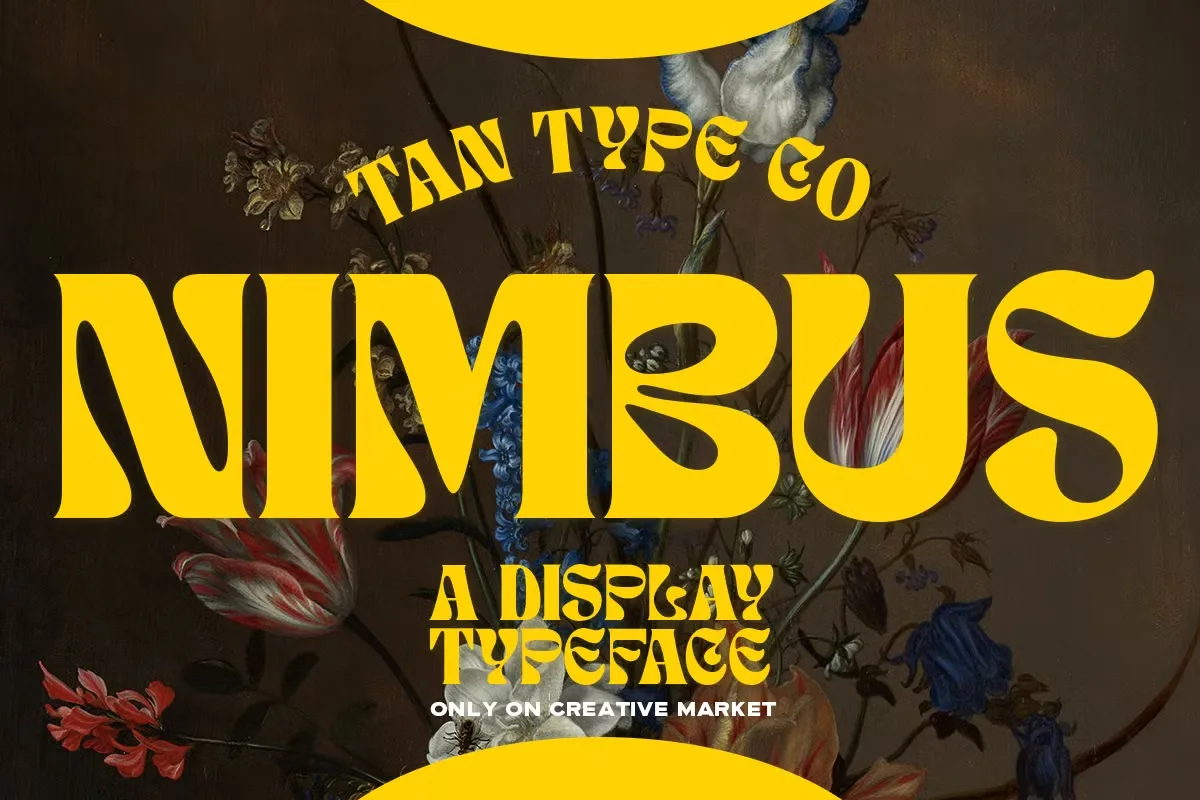
Tan Nimbus Font
by
Leavime
Tan Nimbus Font
TAN NIMBUS is a modern sans-serif font that embraces a contemporary design with a variety of modernist geometrical shapes. It is a typeface built for the present and the future, offering a sleek and minimalist aesthetic. With no unnecessary embellishments, its symmetrical proportions and balanced weight ensure clarity and harmony. Whether viewed up close or from a distance, its clean and precise letterforms maintain excellent legibility, making it suitable for a wide range of applications.
This font family includes multiple weights and styles, allowing for greater flexibility in design while maintaining readability. Its refined and professional look makes it a popular choice for branding, advertising, and editorial design. Often associated with a polished and business-like appearance, TAN NIMBUS enhances layouts with a modern touch without compromising on functionality. Whether used for digital or print media, it brings a sophisticated and timeless quality to any project.